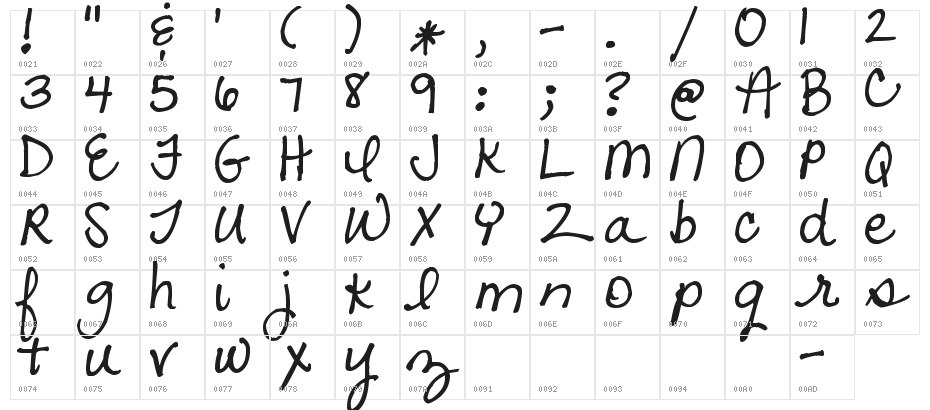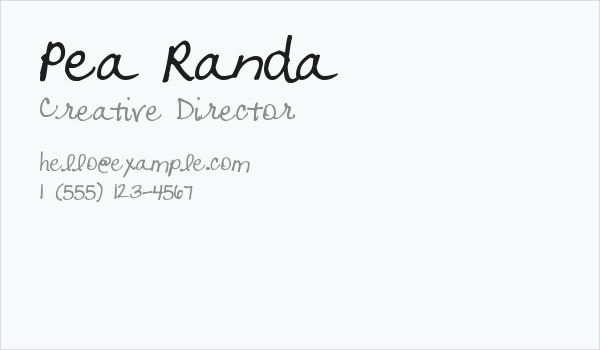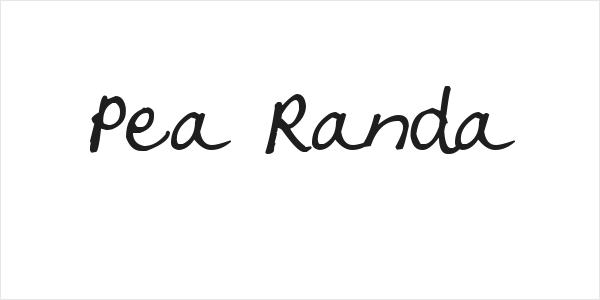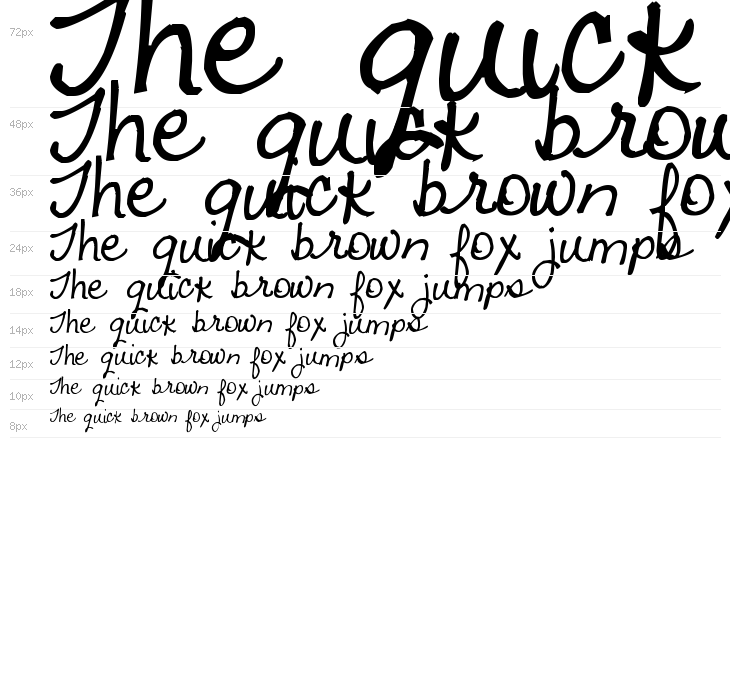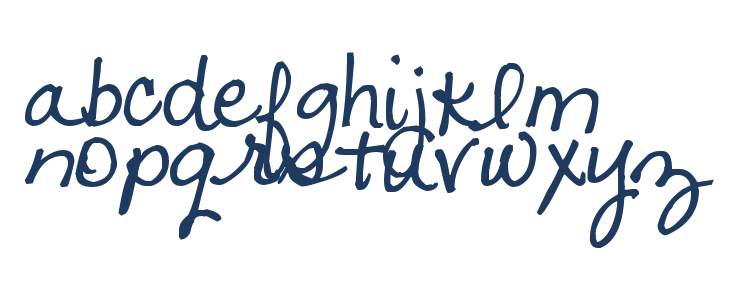
Pea Randa Font
Pea Randa Description
This font exudes a playful and casual handwritten style, characterized by its smooth, flowing strokes and slightly irregular letterforms. The uppercase letters maintain a consistent height, while the lowercase letters exhibit a charming variability that adds to its informal appeal. The numerals are bold and rounded, complementing the overall aesthetic. Special characters are creatively styled, enhancing the font's whimsical nature. This typeface is perfect for projects that require a personal touch, such as invitations, greeting cards, or playful branding.
| Overall Style | Casual, Playful |
| Use Case | Headlines, Logos, Invitations |
| Proposed Projects | Ideal for invitations, greeting cards, playful branding, and personal projects. |